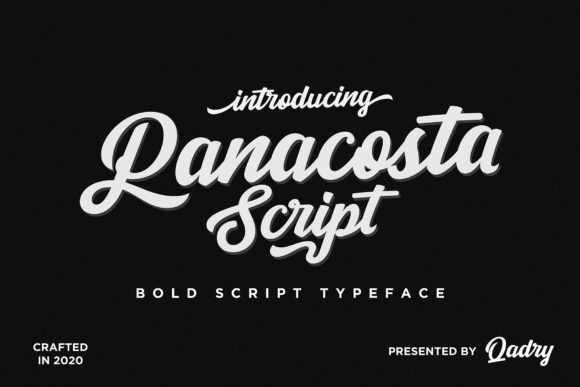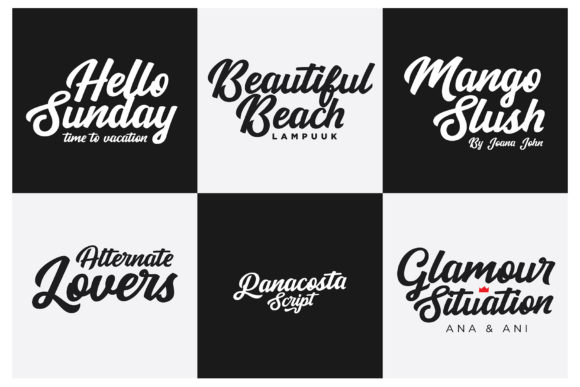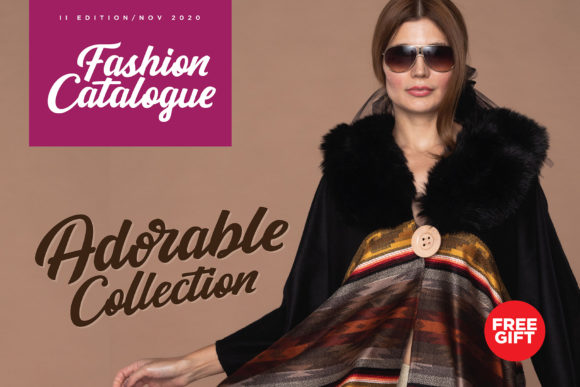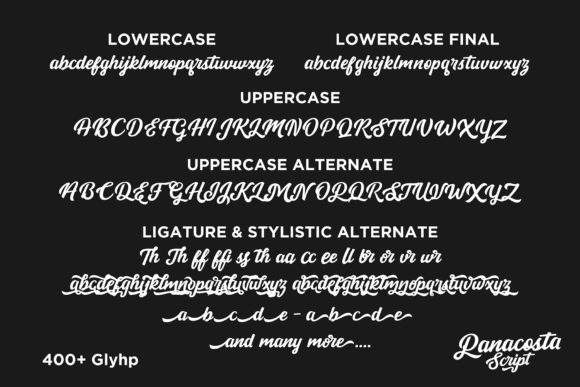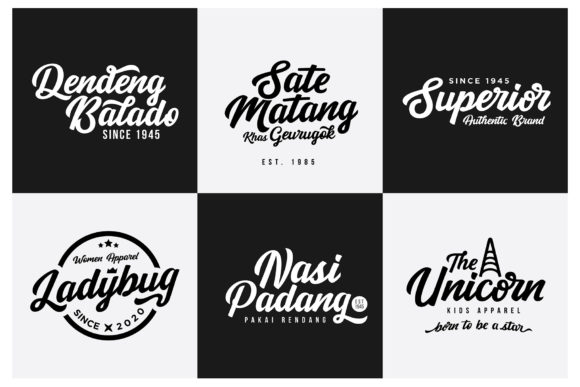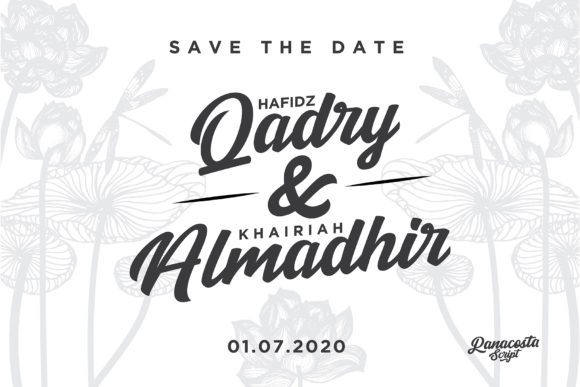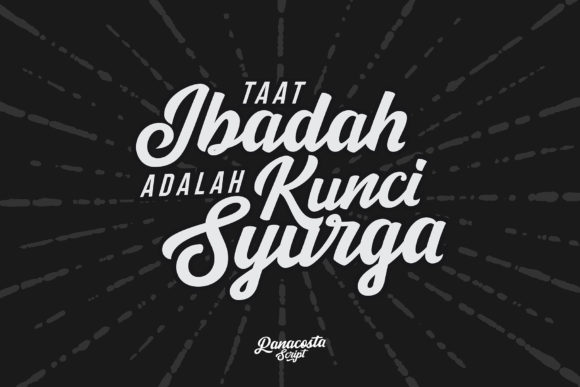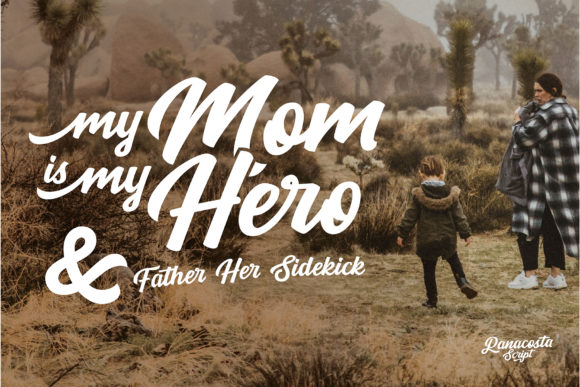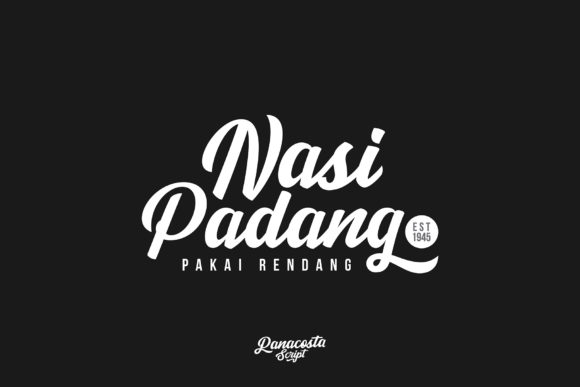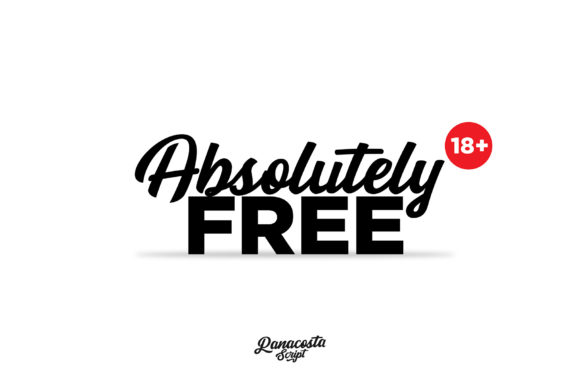
Panacosta Font
About Panacosta Font
Panacosta is inspired by classic typography and brings its own unique style to any design project. This fantastic handwritten font is best suited for headlines of all sizes, as well as for blocks of text that have both maximum and minimum variations. Whether it’s for web, print, moving images or anything else – Panacosta will look spectacular.